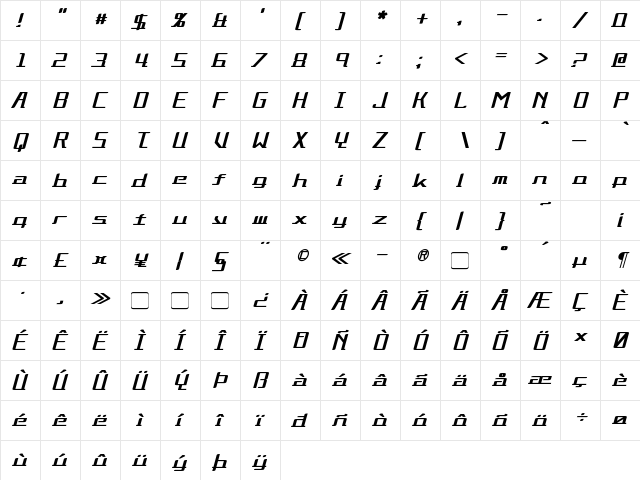
Alternation Italic
Italic · Neale Davidson Neale Davidson ·
Design Context for Alternation Typeface
Alternation offers clean, dependable letterforms without strong stylistic allegiance, making it a practical choice for designers who need flexibility. The dynamic lean of this cut emphasises speed and emphasis in any layout.
Pro Tip: Try Alternation for annotation and caption copy alongside an upright companion — the contrast in angle creates a dynamic but ordered typographic system.